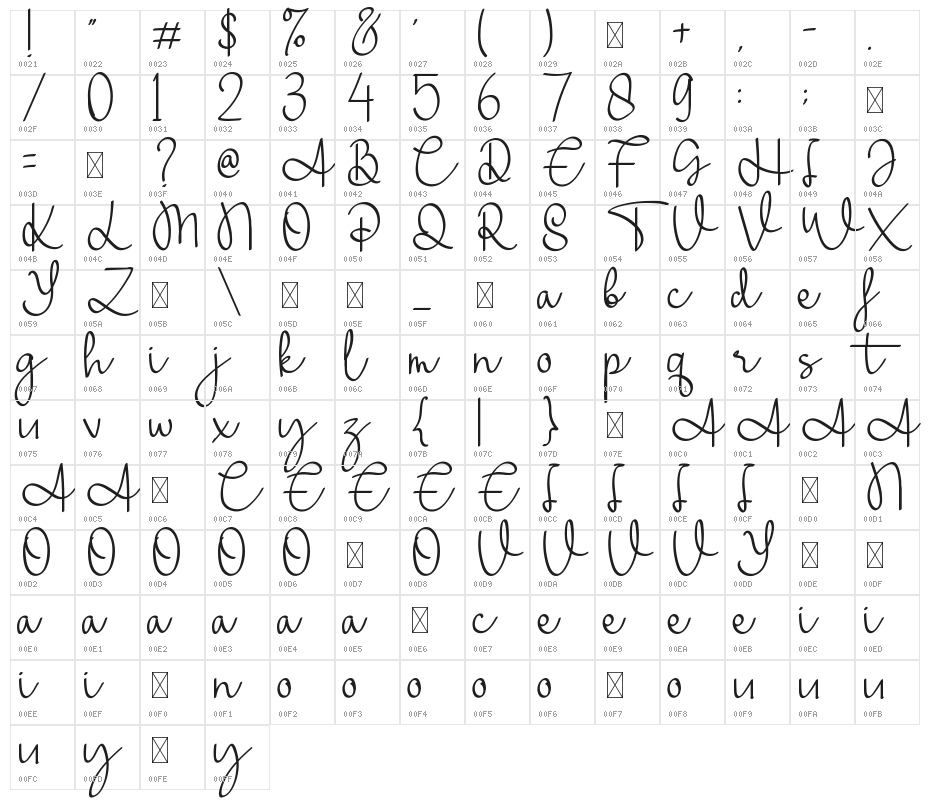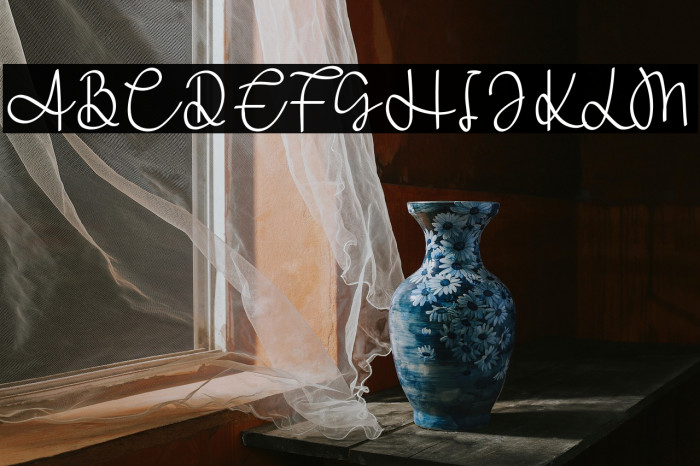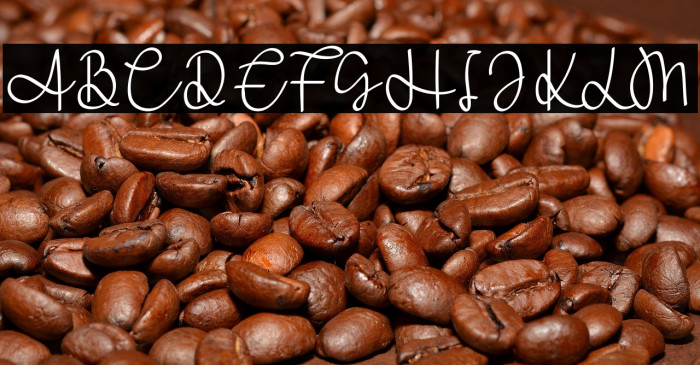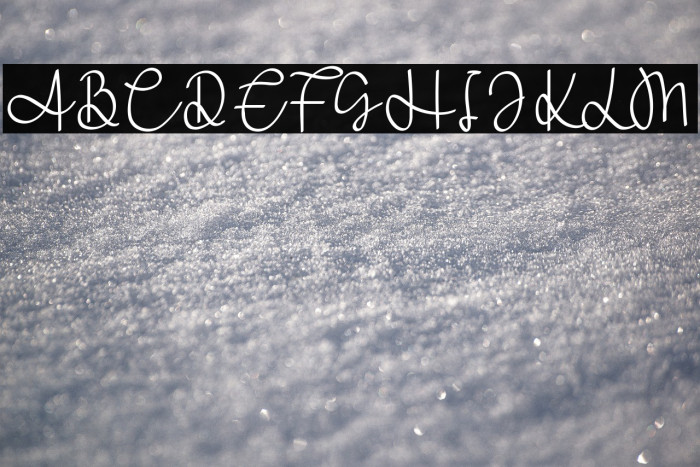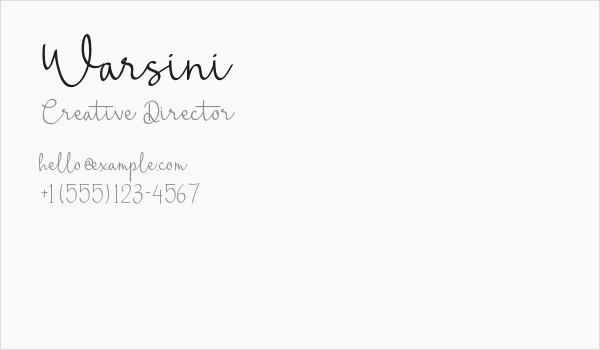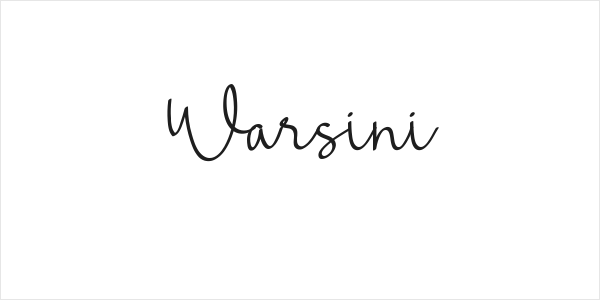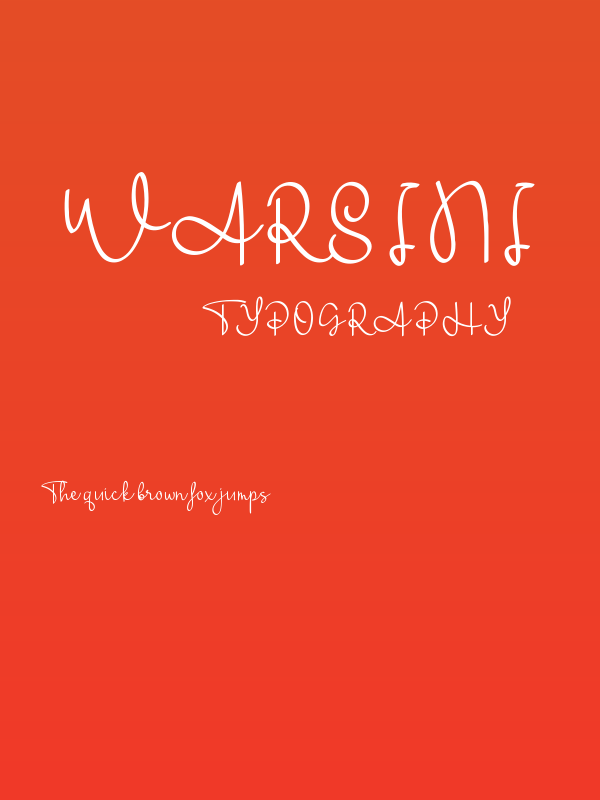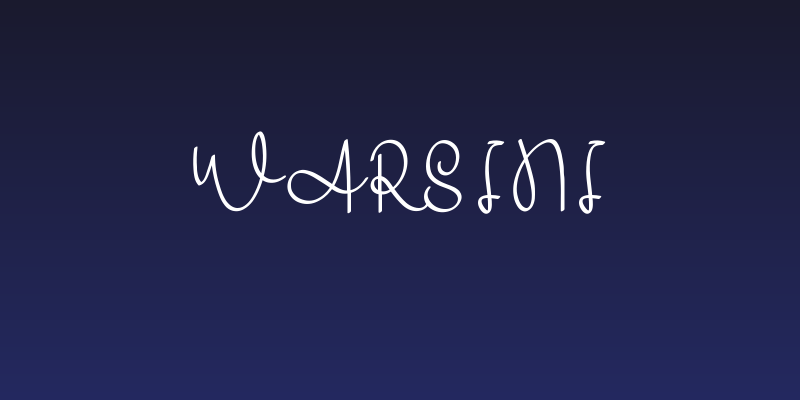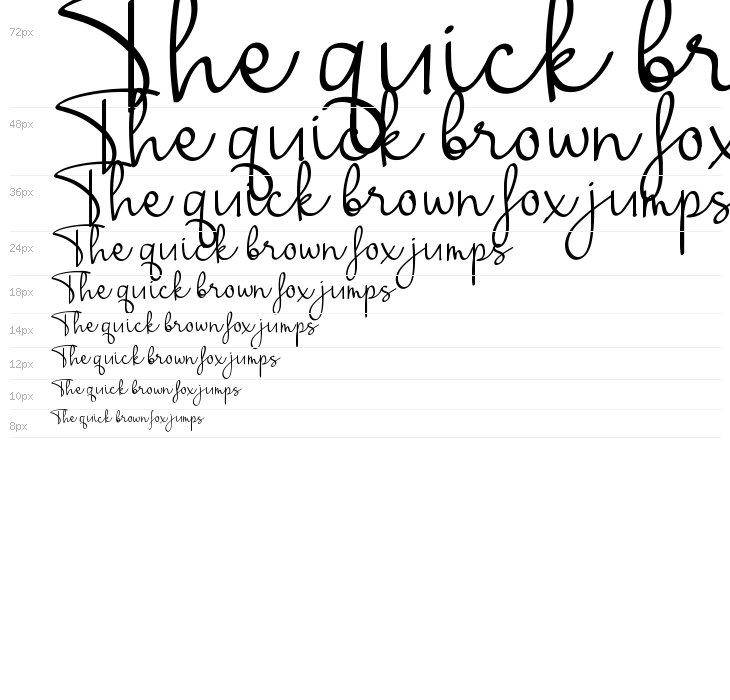
Warsini Font
Warsini Description
This font features a unique blend of cursive and script styles, characterized by its flowing, interconnected letters that create a sense of elegance and fluidity. The uppercase letters exhibit a playful yet sophisticated design with loops and curves, while the lowercase letters maintain a consistent, smooth flow. The numerals are distinct and easily readable, complementing the overall style. Special characters are creatively integrated, adding to the font's versatility. The font's design is both artistic and functional, making it suitable for a variety of creative projects.
| Overall Style | Elegant, Artistic |